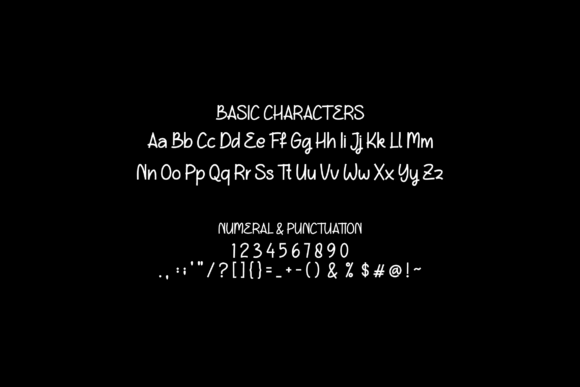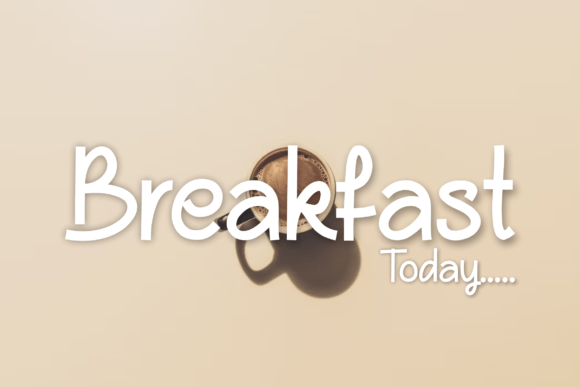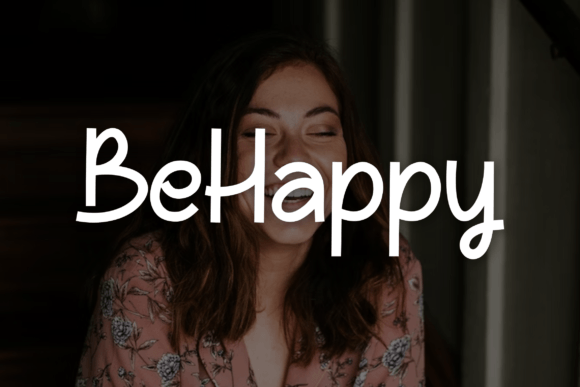
Introducing BeHappy Font: The Perfect Handwritten Font for Your Creative Projects
Are you a designer, crafter, or DIY enthusiast looking for a beautiful and fun handwritten font to elevate your creative projects? Look no further than BeHappy Font! This stunning font is perfect for a wide range of applications, from product designs and logos to packaging, social media posts, book covers, magazines, shopping bags, and more.
What Makes BeHappy Font So Special?
BeHappy Font is a carefully crafted handwritten font that exudes warmth, friendliness, and approachability. Its unique and elegant lettering style makes it perfect for designers and crafters who want to add a personal touch to their projects. Whether you’re creating a brand identity, designing a product label, or crafting a social media post, BeHappy Font is sure to make your design stand out.
Key Features of BeHappy Font
- Beautiful Handwritten Style: BeHappy Font features a gorgeous handwritten style that’s perfect for creating unique and eye-catching designs.
- Versatile: This font is suitable for a wide range of applications, from product designs and logos to packaging, social media posts, book covers, magazines, shopping bags, and more.
- Elegant and Fun: BeHappy Font strikes the perfect balance between elegance and playfulness, making it perfect for designers and crafters who want to create designs that are both sophisticated and fun.
- Easy to Read: Despite its elegant and cursive style, BeHappy Font is easy to read, making it perfect for body text, headings, and titles.
Use Cases for BeHappy Font
BeHappy Font is an incredibly versatile font that can be used in a wide range of creative projects. Here are some use cases to get you started:
- Product Designs: Use BeHappy Font to create stunning product labels, packaging, and branding materials that will make your products stand out.
- Logos and Branding: Create a unique and memorable logo for your business or brand using BeHappy Font.
- Social Media Posts: Add a personal touch to your social media posts using BeHappy Font. Perfect for creating eye-catching graphics, quotes, and promotions.
- Book Covers and Magazines: Use BeHappy Font to create stunning book covers, magazine titles, and article headings that will grab attention.
- Shopping Bags and Packaging: Add a touch of elegance and sophistication to your shopping bags and packaging materials using BeHappy Font.
Why Choose BeHappy Font?
With so many fonts available, why choose BeHappy Font? Here are just a few reasons why BeHappy Font stands out from the crowd:
- Unique and Exclusive: BeHappy Font is a unique and exclusive font that’s not commonly used, making it perfect for designers and crafters who want to create distinctive designs.
- High-Quality: BeHappy Font is a high-quality font that’s been carefully crafted to ensure that it’s clear, legible, and visually appealing.
In conclusion, BeHappy Font is a beautiful and fun handwritten font that’s perfect for designers, crafters, and DIY enthusiasts. With its unique and elegant lettering style, versatility, and ease of use, BeHappy Font is sure to become a go-to font for creative projects. Whether you’re creating product designs, logos, social media posts, or book covers, BeHappy Font is the perfect choice. So why wait? Download BeHappy Font today and start creating stunning designs that will make your projects stand out!